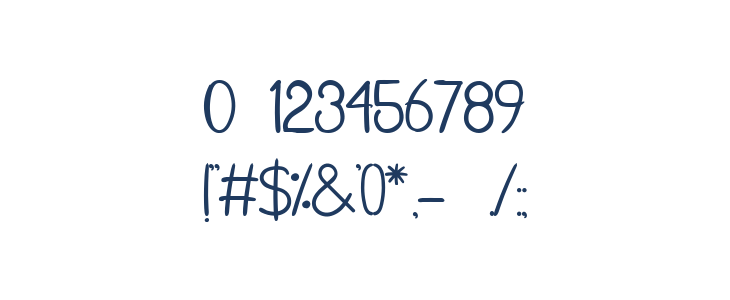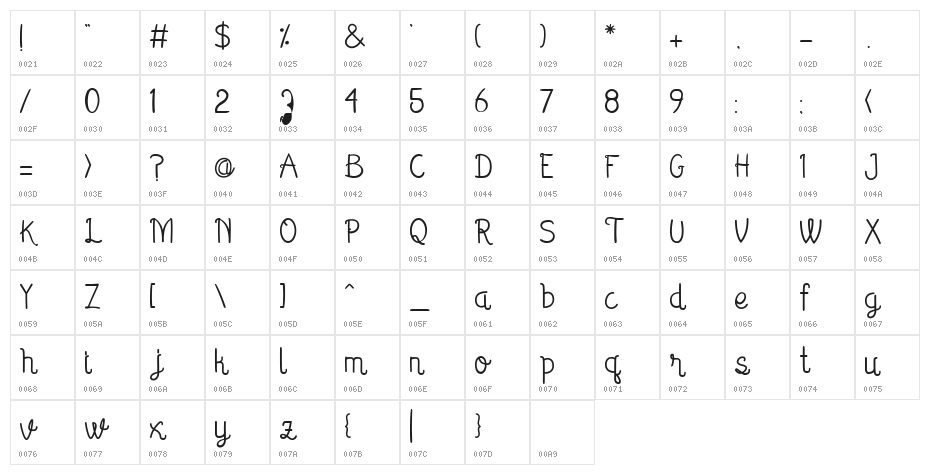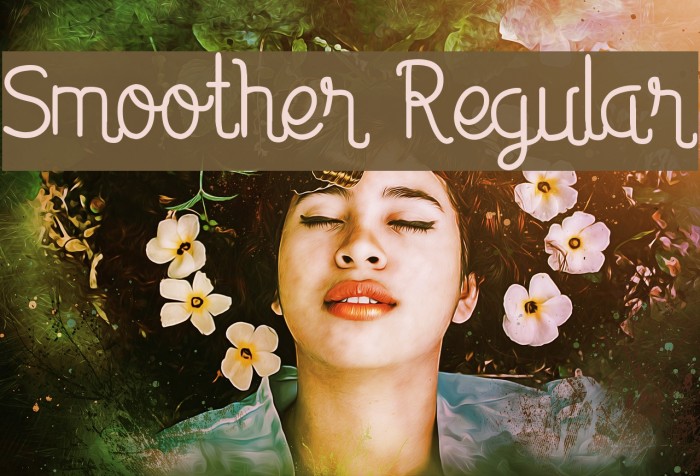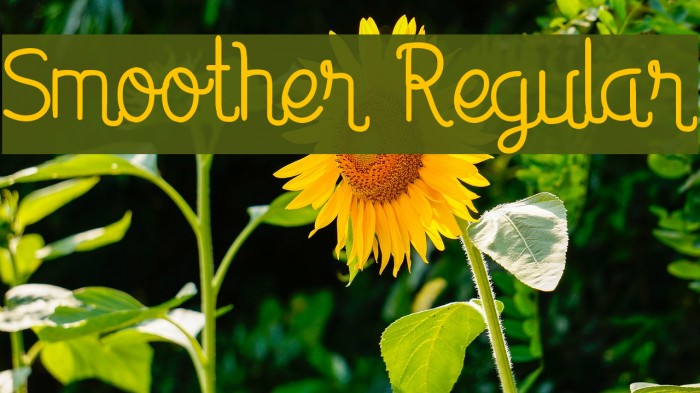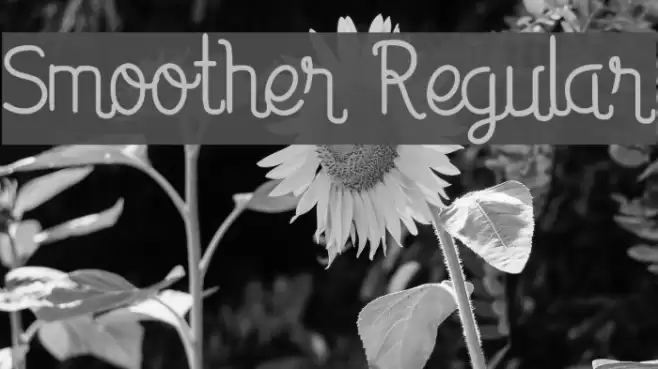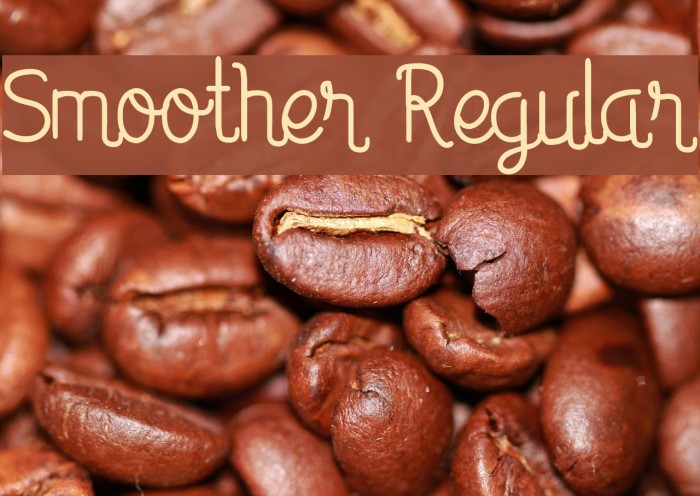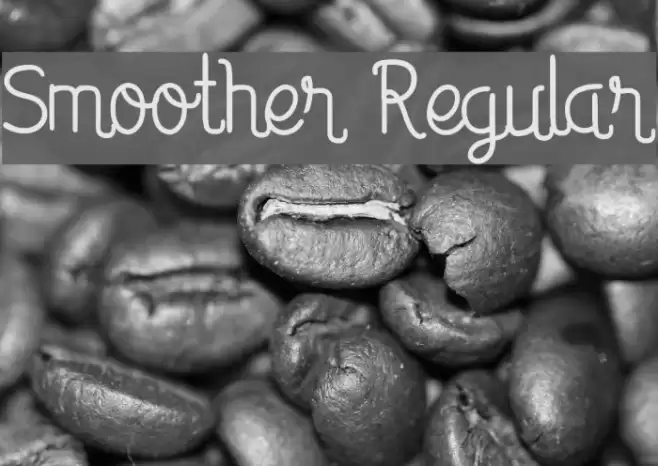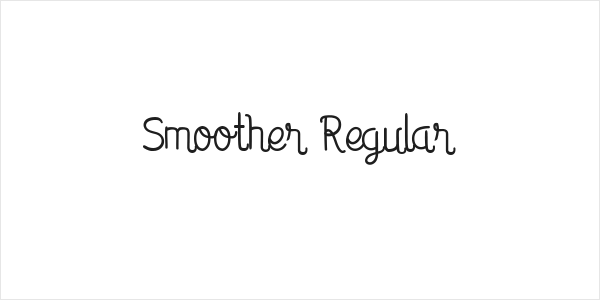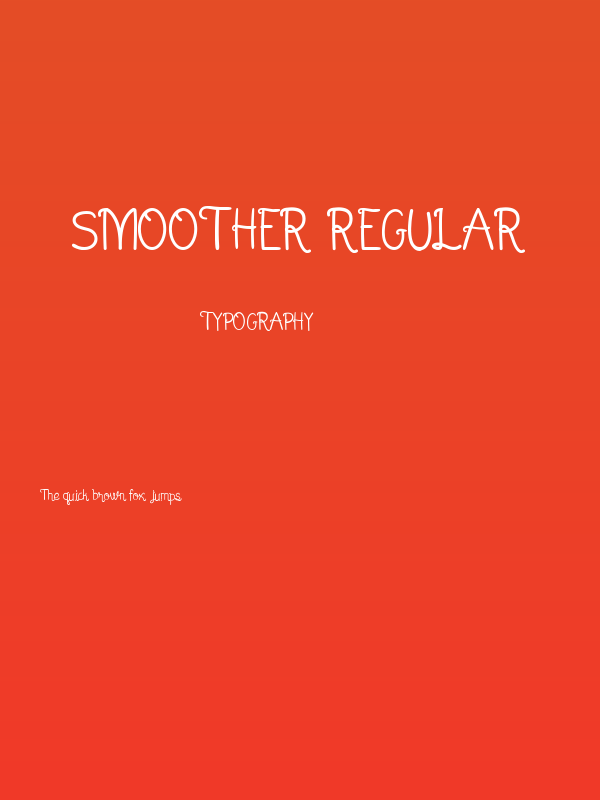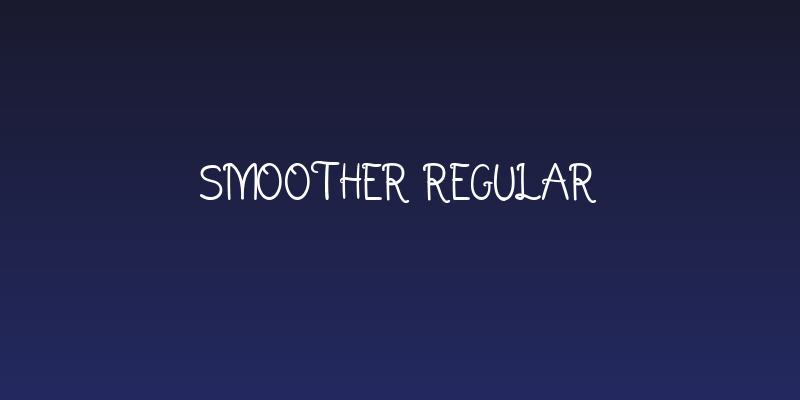
Smoother Regular Font
Smoother Regular Description
This font features a playful and whimsical design, characterized by its smooth, flowing lines and rounded edges. The letters are interconnected, giving it a handwritten feel that is both casual and approachable. The uppercase letters maintain a consistent height, while the lowercase letters exhibit a slight variation in size, adding to the font's charm. The numerals are clear and easy to read, with a similar style to the letters. Special characters are included, maintaining the same playful aesthetic. Overall, this font is ideal for projects that require a friendly and informal touch.
| Proposed Projects | Ideal for greeting cards, children's books, playful branding, and casual invitations. |